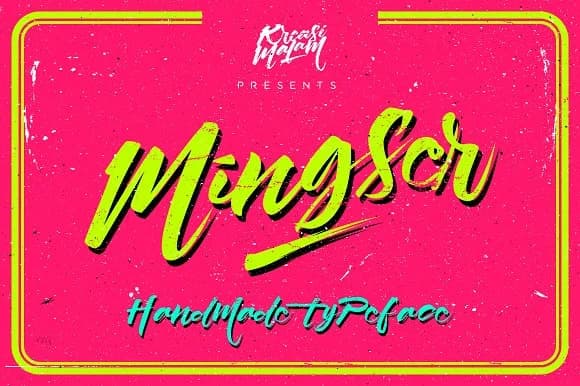
Mingser by KreasiMalam is a playful handwritten calligraphy font that brings informal charm and genuine artistic flair to diverse creative projects and branding needs. With its organic letterforms and expressive character weight, Mingser shines for personal branding work, DIY greeting card design suites, hand-lettered social media graphics, and custom wedding invitation packages. The font's loose, confident strokes authentically capture the personality of pen-drawn lettering while remaining legible and functional across various digital and print applications, from websites to physical packaging and labels.
Beyond standard lettering work, Mingser includes elegant swash alternates that provide designers with creative flexibility and multiple options for more decorative flourishes and enhanced visual interest in headlines, titles, or decorative accent passages. Whether you're creating vintage-style recipe cards, hand-painted podcast cover artwork, artisanal product labeling for small business packaging, personalized announcement and event design, or boutique cosmetics and skincare branding, this typeface adapts seamlessly to diverse projects requiring genuine handwritten character and warmth. Its casual, sketch-like quality and organic feel make it particularly suited for creative work that prioritizes authentic human craftsmanship and visual warmth over sterile corporate aesthetics and formal presentation.
Mingser Font is a script font that shines as a display or heading face. Pair it with a clean sans-serif or serif font for body text β the contrast creates a clear hierarchy while the two styles stay balanced and easy to read.
Mingser Font
by KreasiMalam